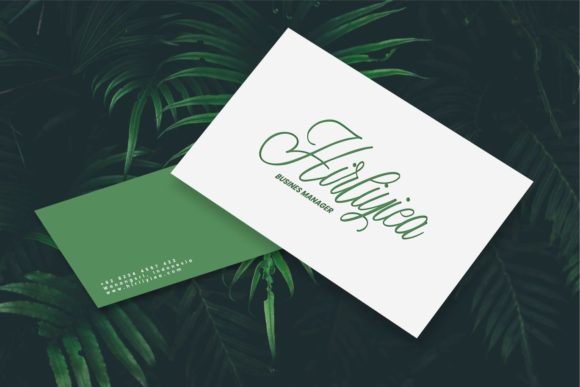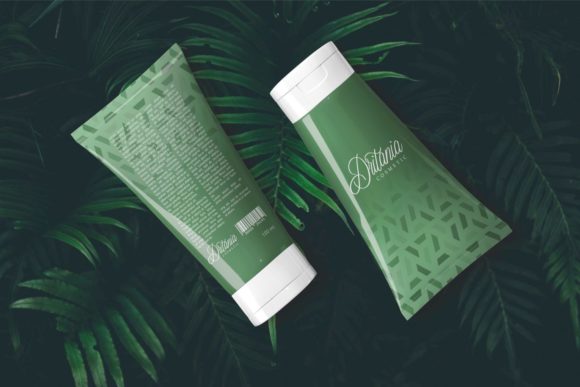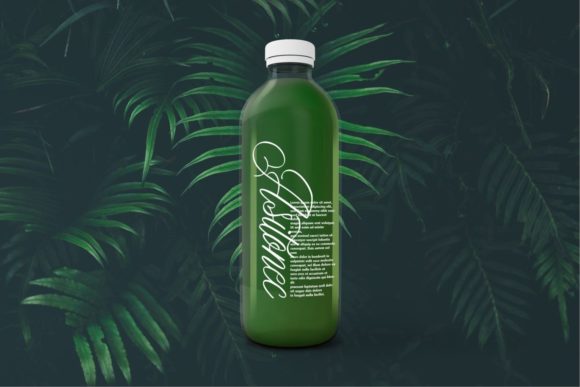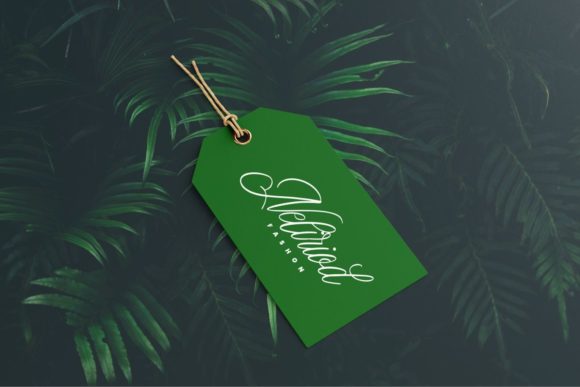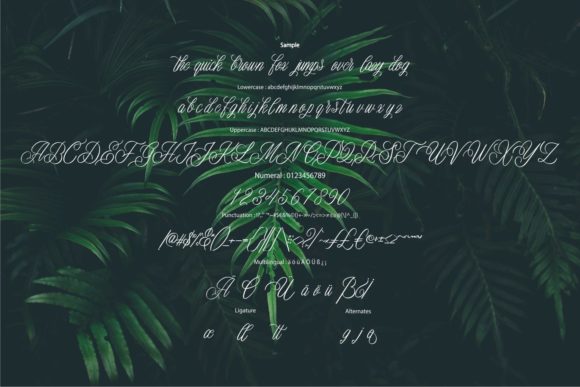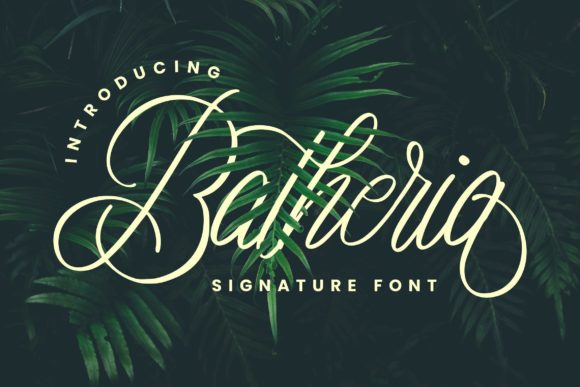
Batheria Font: Elevate Your Designs with Sophistication and Elegance
In the world of typography, a font can make or break a design. For those seeking to infuse their projects with a touch of sophistication and elegance, Batheria Font is an exceptional choice. This chic, refined script font is designed to bring a level of luxury and refinement to any design, making it perfect for creatives and designers looking to make a statement.
The Essence of Batheria Font
Batheria is not just a font; it’s an experience. Its stylish alternates and ligatures are thoughtfully crafted to provide a unique and personalized touch to your text. Whether you’re working on a branding project, a wedding invitation, or a high-end product label, Batheria Font ensures that your typography stands out with elegance and poise.
Key Features of Batheria Font
- Stylish Alternates: Batheria offers a range of stylish alternates that allow you to customize your text. These alternates can be used to create a unique look for your headings, titles, or any text you want to emphasize.
- Ligatures: The font includes ligatures, which are special characters that combine two or more letters into one. Ligatures in Batheria add a touch of sophistication and fluidity to your text, making it more visually appealing.
- Elegant and Refined: Batheria’s overall design is characterized by its elegance and refinement. The font’s strokes are smooth and flowing, giving it a luxurious feel that’s perfect for high-end designs.
- Versatile: Despite its sophisticated look, Batheria is incredibly versatile. It can be used in a variety of design contexts, from fashion and beauty to luxury branding and editorial projects.
Who Can Benefit from Batheria Font?
Batheria Font is a valuable asset for a wide range of designers and crafters, including:
- Graphic Designers: Those working on branding, packaging, and advertising will find Batheria to be a versatile and elegant solution for their typography needs.
- Wedding and Event Planners: For those planning luxury weddings or events, Batheria can add a touch of elegance to invitations, menus, and other printed materials.
- Fashion and Beauty Designers: Batheria’s sophisticated look makes it a perfect match for fashion and beauty brands looking to convey luxury and elegance.
- Stationery and Journal Designers: Those creating high-end stationery, journals, or notebooks will appreciate Batheria’s refined and elegant aesthetic.
Tips for Using Batheria Font Effectively
To get the most out of Batheria Font, consider the following tips:
- Pair with Simple Fonts: For maximum impact, pair Batheria with simpler, sans-serif fonts for body text. This contrast will highlight the elegance of Batheria.
- Use Alternates and Ligatures: Don’t be afraid to experiment with the font’s alternates and ligatures. These features can add a unique touch to your designs.
- Adjust Size and Color: Batheria looks stunning when used at larger sizes, but it also works well at smaller sizes. Experiment with different sizes and colors to find the perfect balance for your design.
Batheria Font is a chic, refined script font that brings sophistication and elegance to any design. With its stylish alternates, ligatures, and versatile nature, it’s an excellent choice for designers and crafters looking to elevate their projects. Whether you’re working on a luxury brand, a wedding invitation, or a high-end product label, Batheria Font is sure to make a lasting impression.